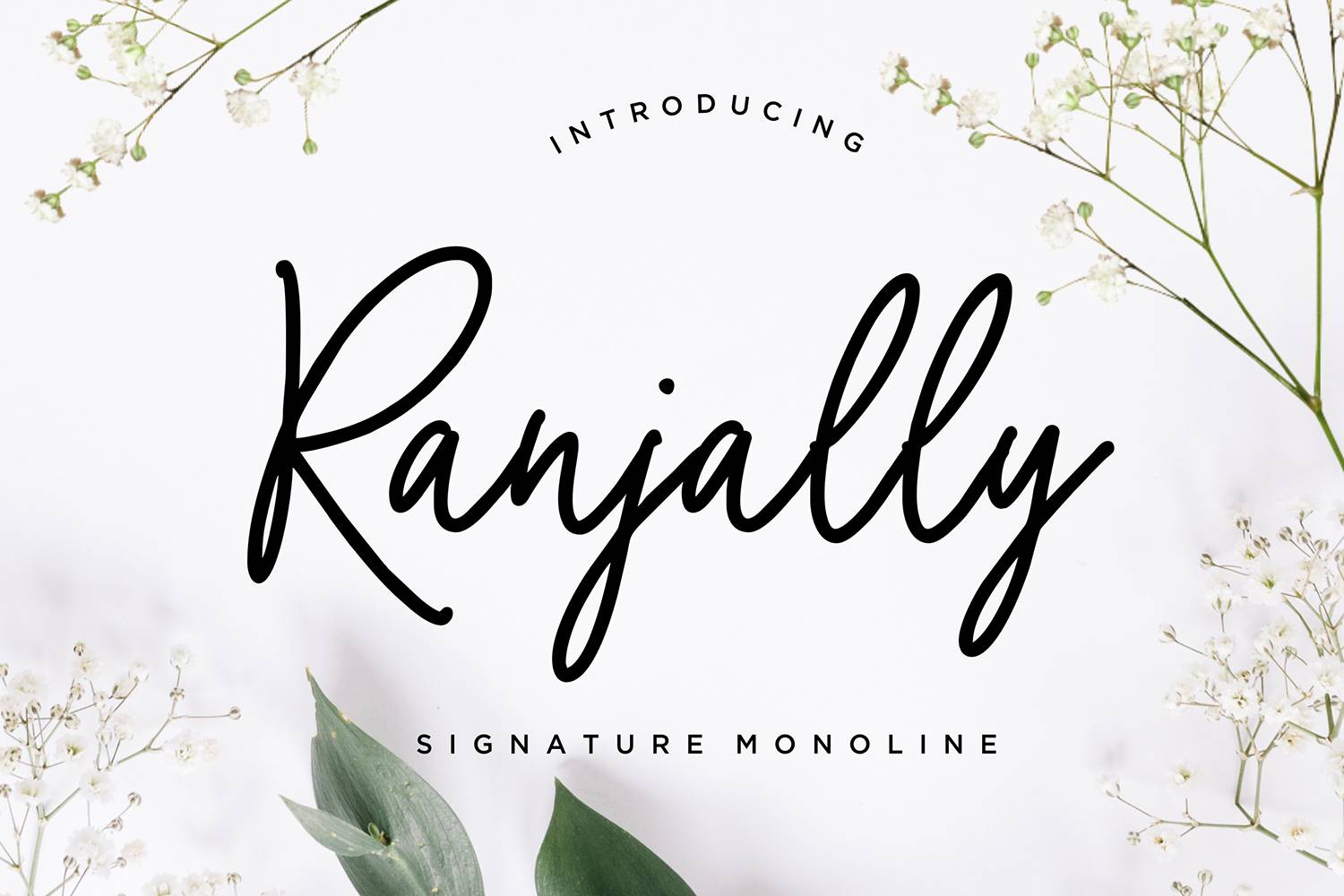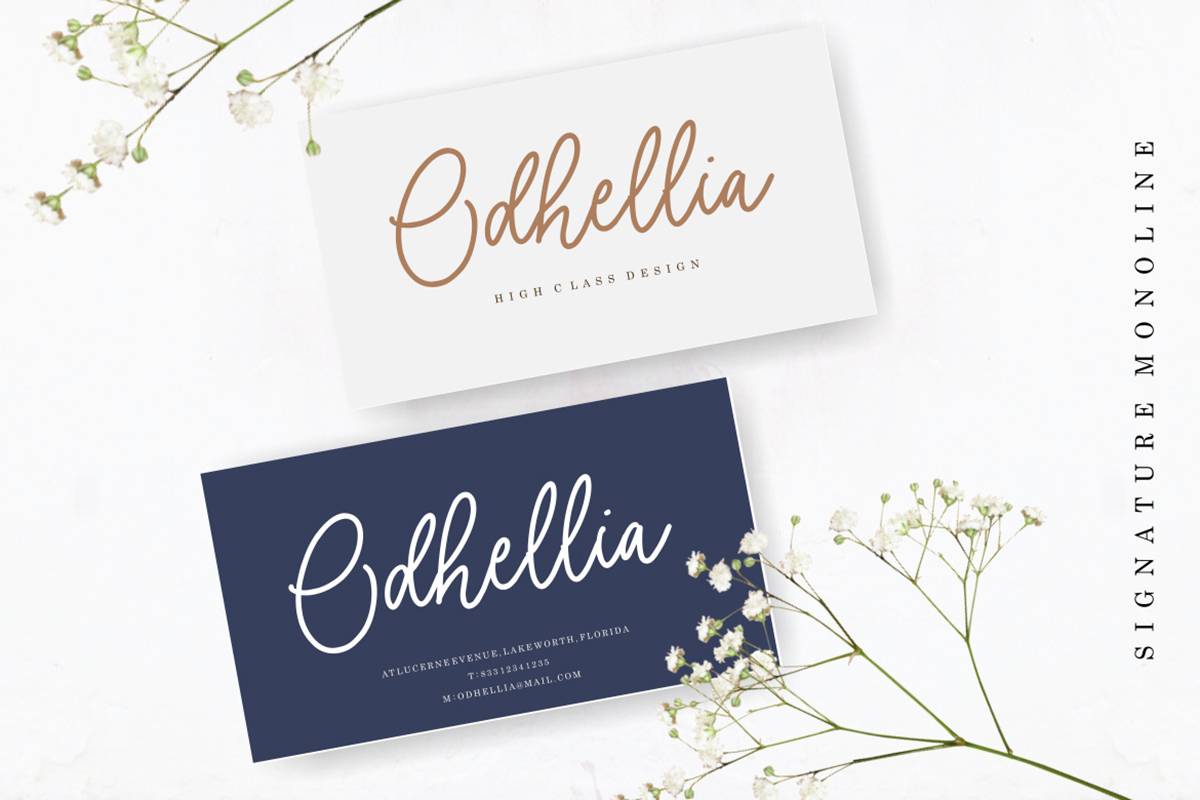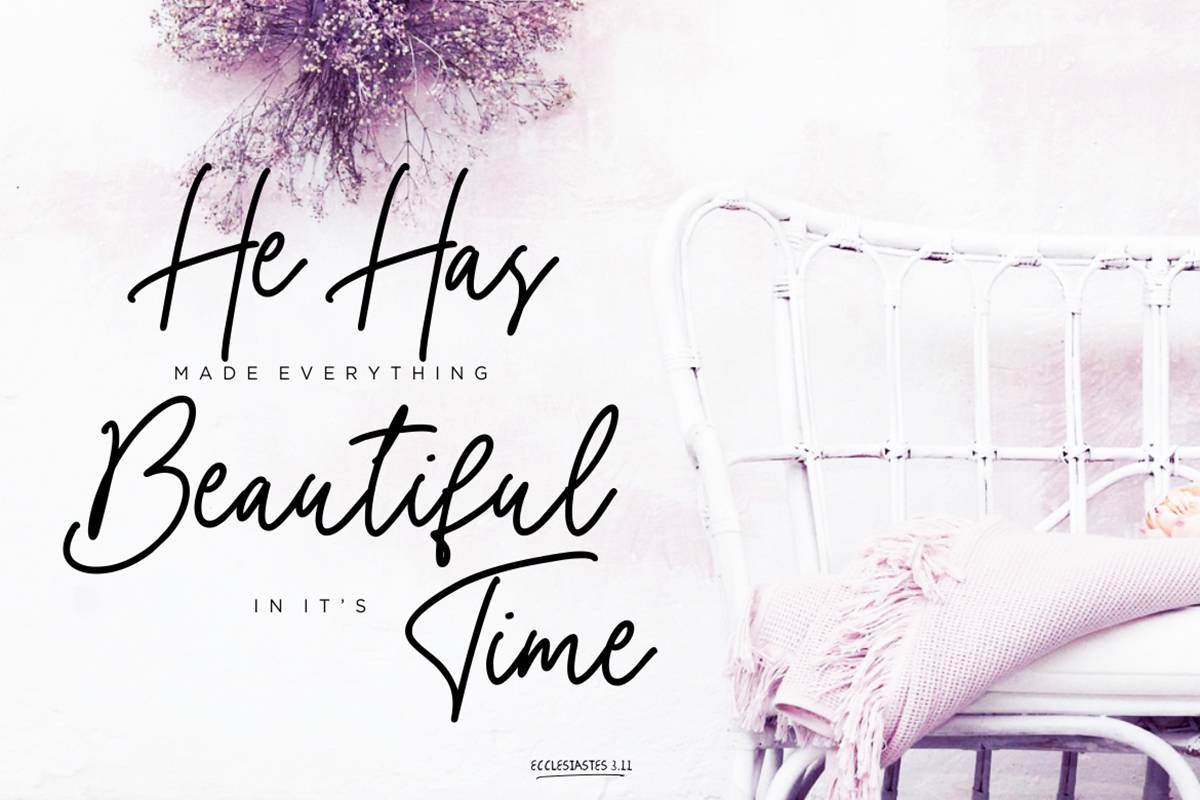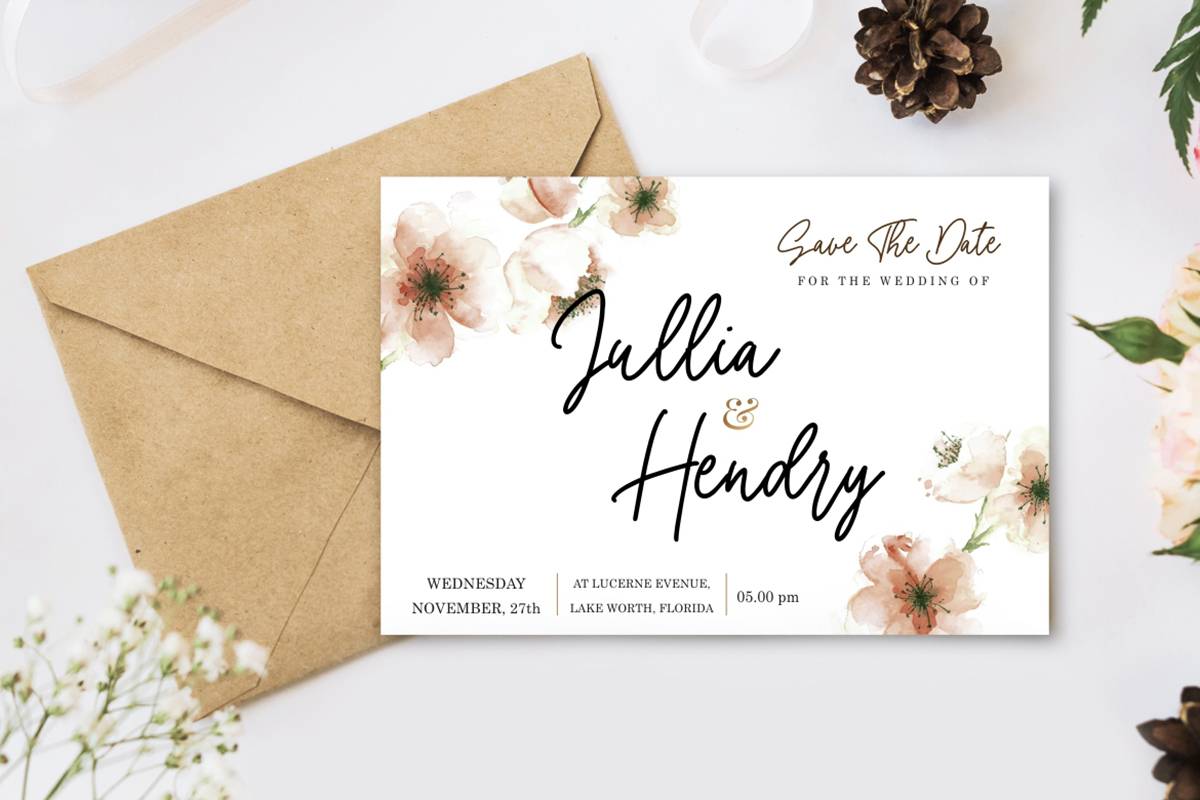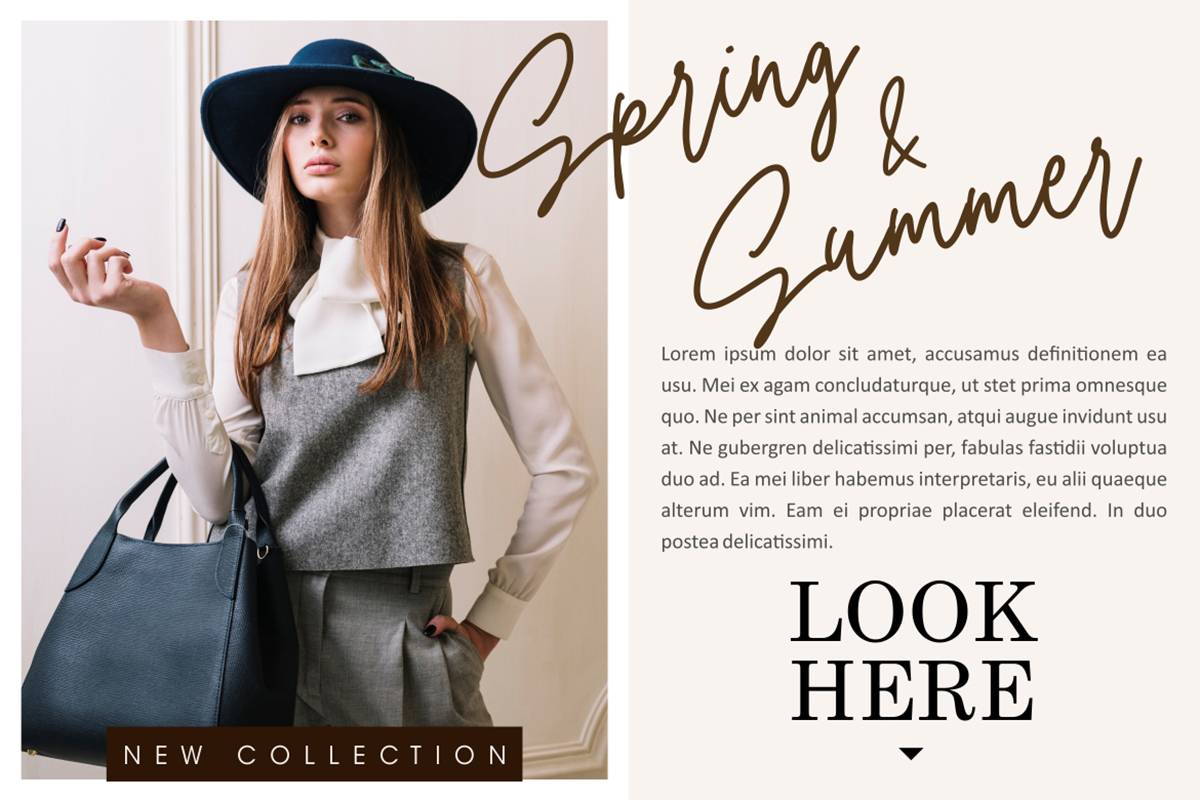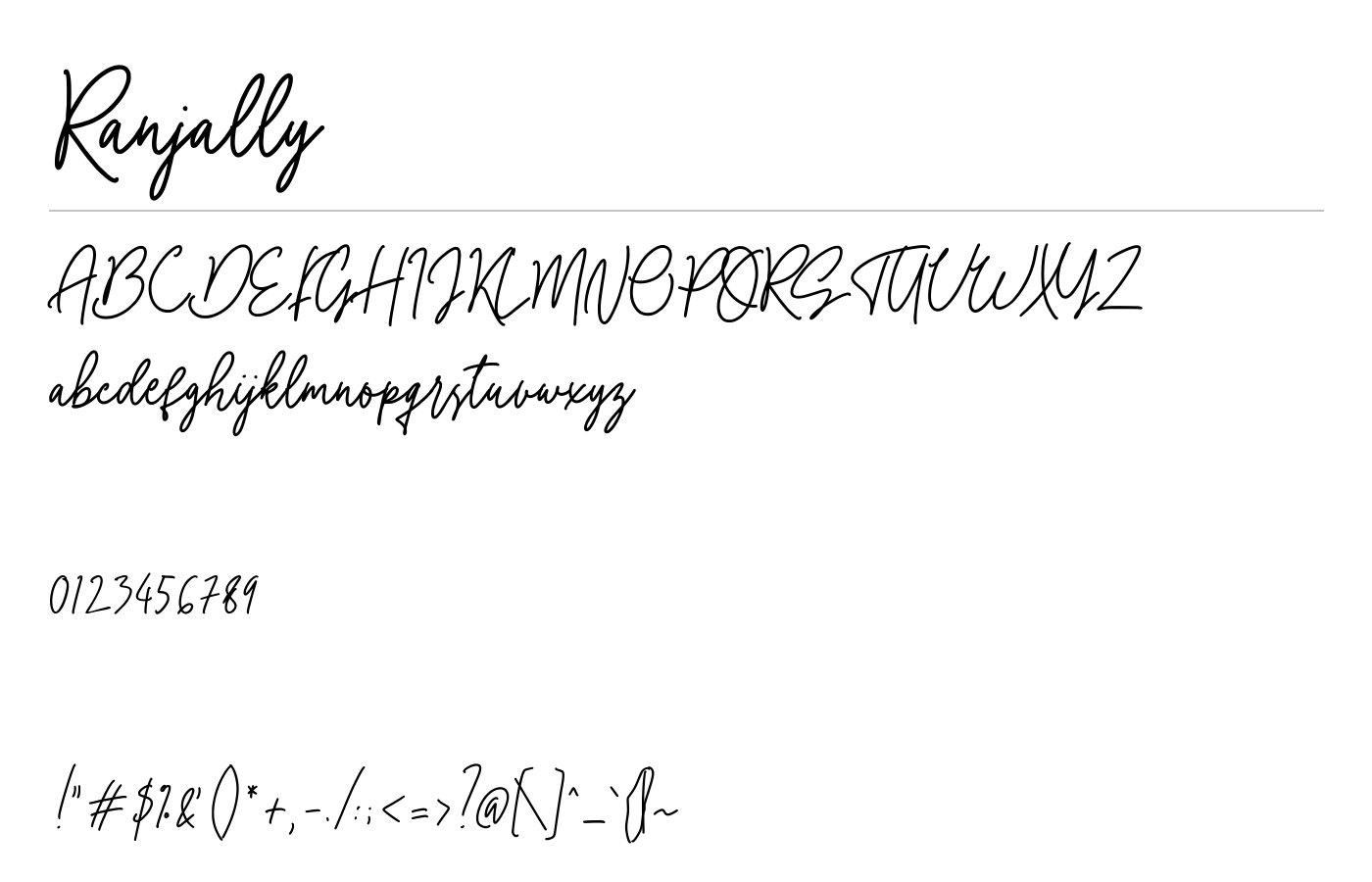
Ranjally is a delicate and elegant handwritten script font with a natural, flowing style that mimics casual yet refined handwriting. Its slender strokes and slightly irregular shapes give it a personal and approachable feel, making it ideal for creative branding, invitations, and lifestyle projects where a friendly yet stylish touch is desired. This font works well in contexts that benefit from warmth and individuality, adding charm and sophistication without feeling overly formal.
Ranjally Font
About Ranjally Font